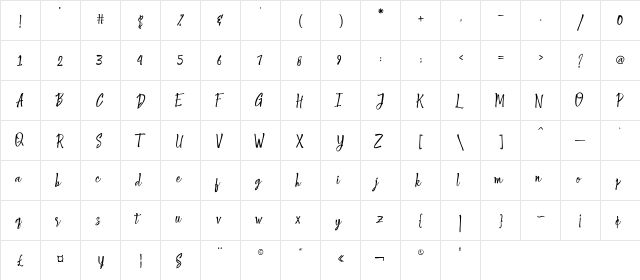
Shantika Script Regular
| Foundry | Fajriadi |
| Designer | Fajriadi |
Design Context for Shantika Script Typeface
Shantika Script brings a calligraphic fluidity to the page — its connecting strokes and expressive curves give it an unmistakably human quality.